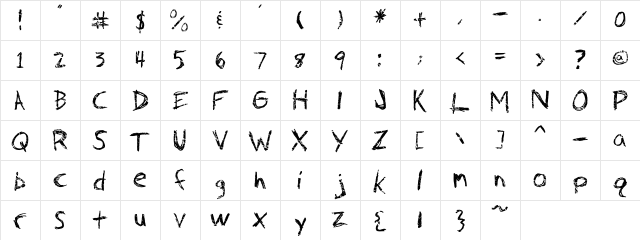
Fh_Faith Regular Free Font
Fh_Faith Regular
Foundry: Dan Meyer (Fictionalhead)
Designer: Dan Meyer (Fictionalhead)
Design Context for Fh_Faith
Fh_Faith is a composed and adaptable typeface that performs quietly and consistently across a wide range of design contexts.
Who designed the Fh_Faith Regular font?